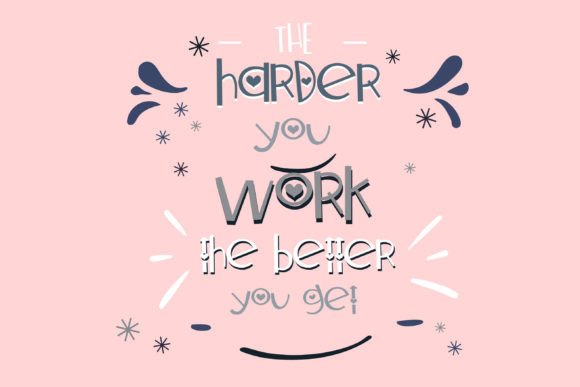
Dorky Devoted Font
This hand-crafted font is a whimsy sans serif with hearts throughout. No matter the topic, this font will be an incredible asset to your fonts’ library, as it has the potential to elevate any creation.